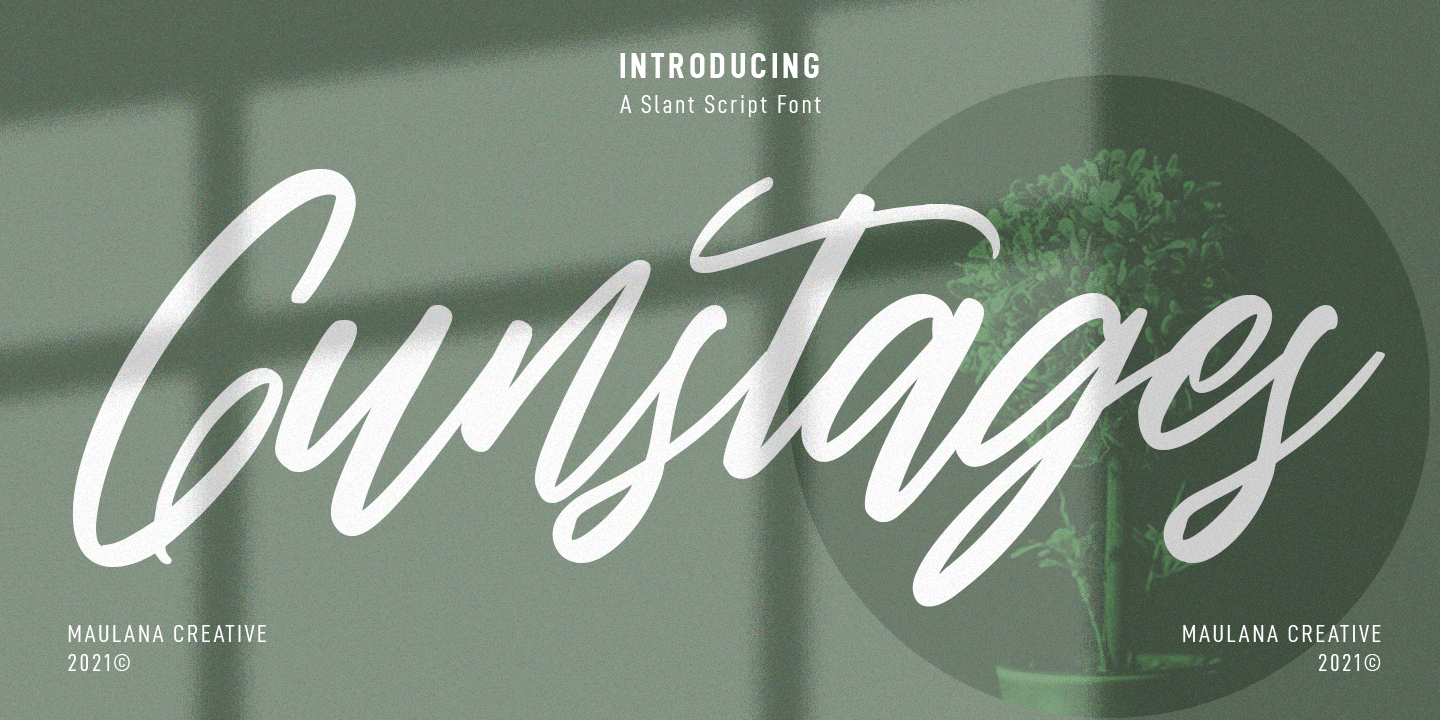
Gunstages Slanted Script Font is perfect for dynamic branding, action-themed designs, energetic advertising campaigns, sports graphics, movement-focused materials, velocity-inspired signage, kinetic communications, and slanted script typography.
What makes Gunstages Slanted Script Font exciting is its dynamic slanted character that embodies movement energy and script sophistication through angled letterforms and kinetic appeal. This energetic typeface features slanted construction, script details, and dynamic personality that captures the essence of forward momentum and stylized movement, making it ideal for projects seeking to communicate energy, dynamism, and script elegance with authentic slanted appeal and kinetic sophistication.
The Gunstages Slanted Script Font family includes Regular and Bold weights, each maintaining the characteristic slanted energy and script appeal that define this distinctive typeface's dynamic personality and movement sophistication.
Gunstages Slanted Script Font Free Download offers designers access to a typeface that perfectly captures the essence of dynamic movement and script elegance. This energetic font brings authentic kinetic aesthetics to contemporary projects, making it essential for sports brands, action companies, and dynamic organizations targeting audiences who appreciate movement energy and script sophistication. The font's slanted construction and script details ensure immediate recognition of dynamism and elegance while its distinctive character creates energetic connections among individuals seeking action-oriented experiences and dynamic communication. Whether designing sports event materials, action brand campaigns, or dynamic communications projects, this font delivers the kinetic authenticity and script sophistication that movement-focused audiences expect. Its dynamic foundation and script symbolism make it indispensable for projects celebrating action culture, movement energy, and the powerful expression of kinetic design, ensuring communications resonate with audiences who value the dynamic energy, movement sophistication, and script elegance that define authentic action experiences and kinetic communication across diverse sports and dynamic applications.